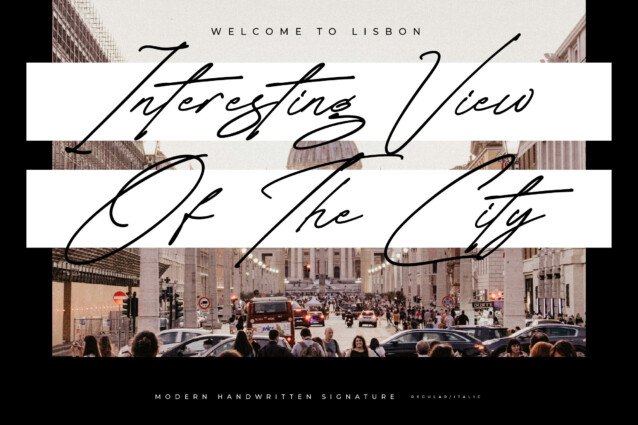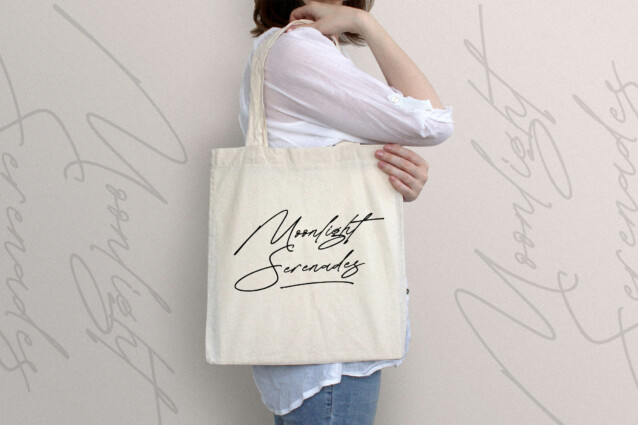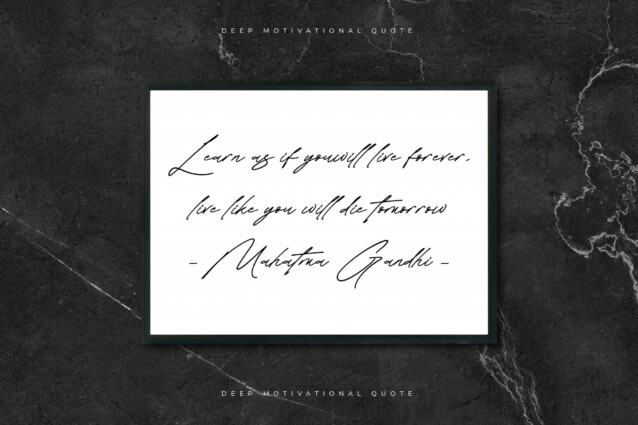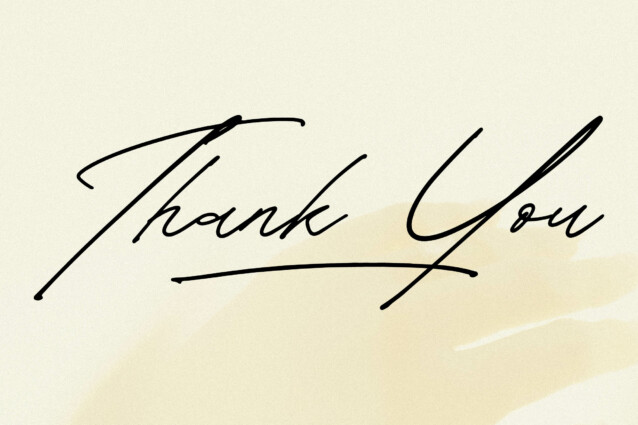
Florestta Opheralio Font
Florestta Opheralio Font is a modern handwritten signature font, from Glorytype Studio, suitable for any projects such as: logos, branding projects, homeware designs, product packaging, mugs, quotes, posters, shopping bags, t-shirts, book covers, name card, invitation cards, greeting cards, label, photography, watermark, special events, and all your other lovely projects that need a beautiful script taste.